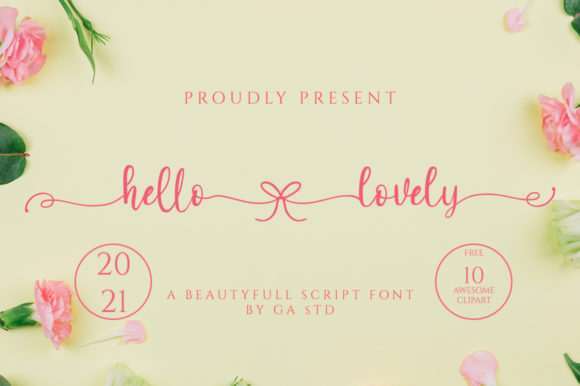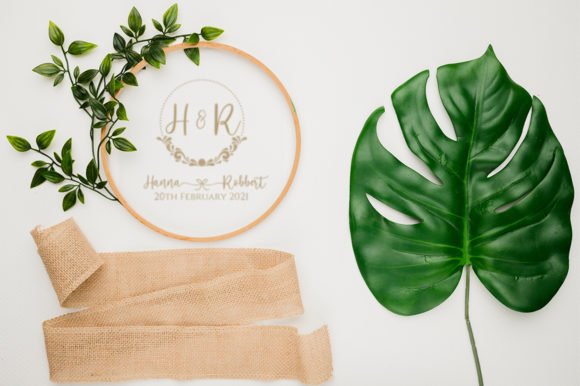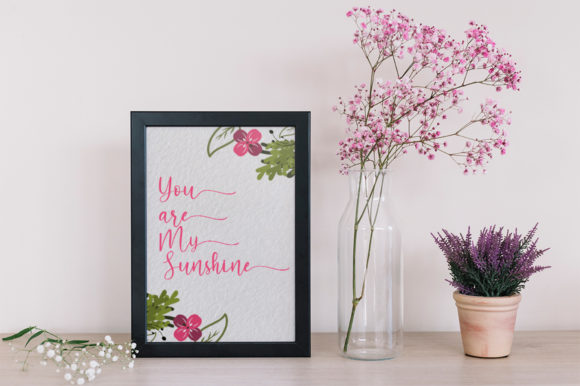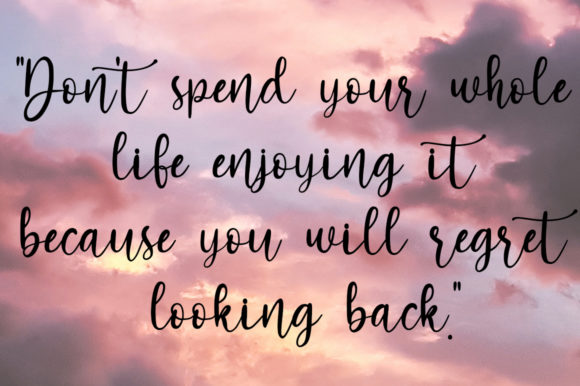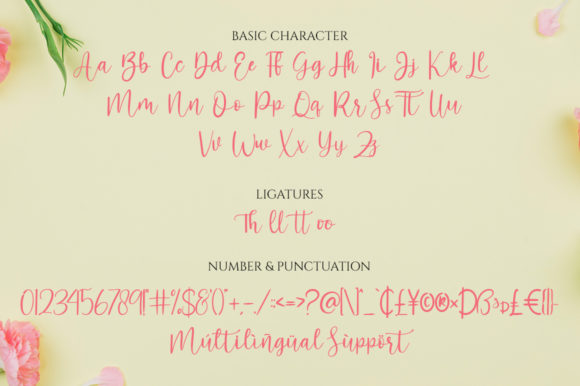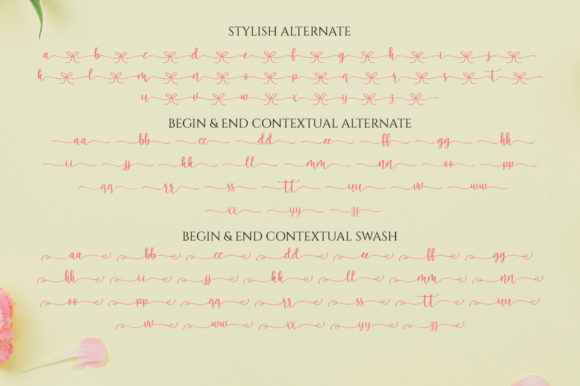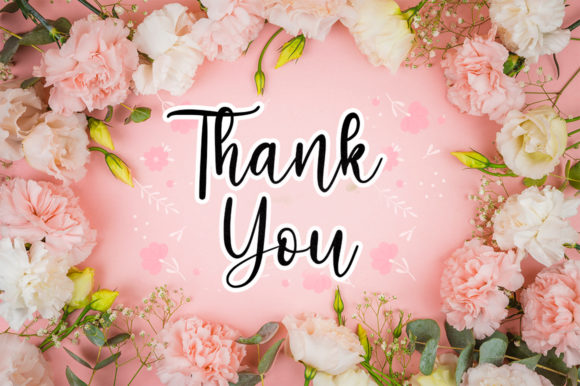
Hello Lovely Font
About Hello Lovely Font
Hello Lovely is an elegant and dainty handwritten font that features sweet and delicate swashes. This original look will appeal to a wide range of crafty ideas, from letterheads and titles, to stationery.